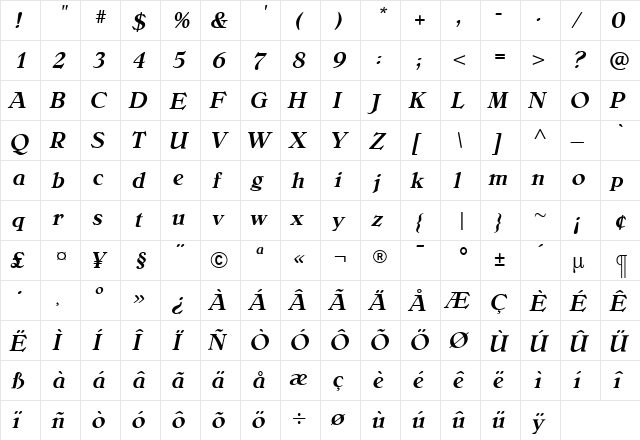
BelliniMediumItalic Regular
Design Context for BelliniMediumItalic Typeface
BelliniMediumItalic offers clean, dependable letterforms without strong stylistic allegiance, making it a practical choice for designers who need flexibility. Its italic angle brings a sense of urgency and motion to the letterforms.
Pro Tip: Try BelliniMediumItalic for annotation and caption copy alongside an upright companion — the contrast in angle creates a dynamic but ordered typographic system.